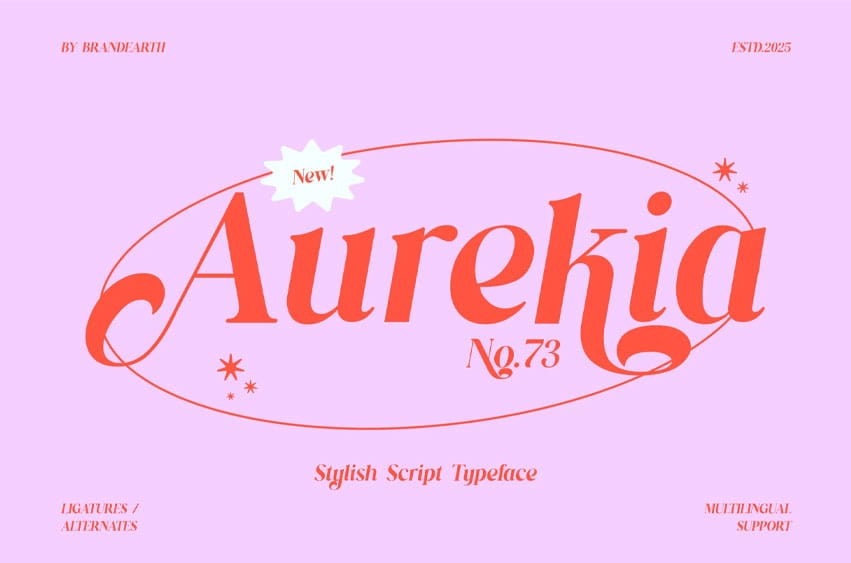
Aurekia Font is a stylish script typeface that merges the charm of modern serif with expressive alternates and elegant ligatures. Its high contrast strokes, fluid curves, and unique personality make it a standout choice for fashion branding, editorial titles, logo design, and lifestyle campaigns. Designed to embody confidence and femininity, Aurekia offers both classic and experimental appeal—perfect for visual storytelling with a trendy twist. With multilingual support and a full set of punctuation and numerals, it’s versatile for both print and digital use.
Relevance and Use Cases is perfect for fashion branding, magazine headlines, beauty packaging, editorial layouts, and empowering quotes. Its stylish ligatures and curves make it ideal for luxury branding, lifestyle campaigns, and social media content that calls for a mix of modern sophistication and expressive personality.